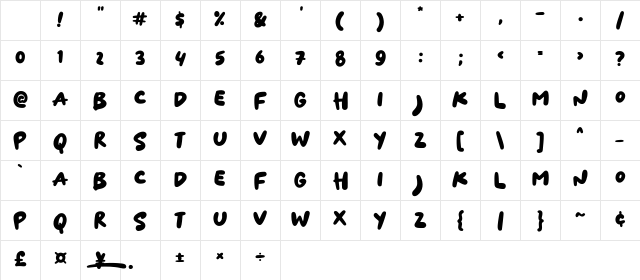
Complete Sawer Regular glyph index. Displaying only characters natively supported by Sawer Regular font.
Sawer is a composed and adaptable typeface that performs quietly and consistently across a wide range of design contexts.